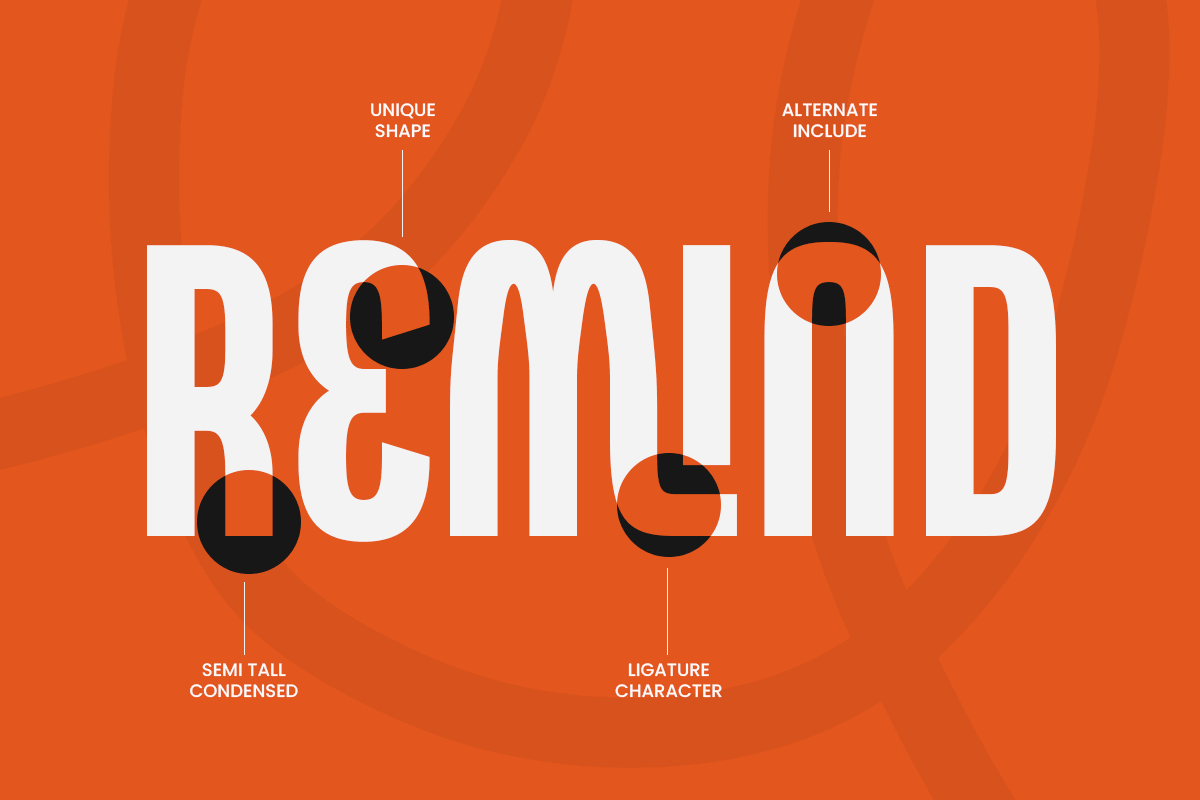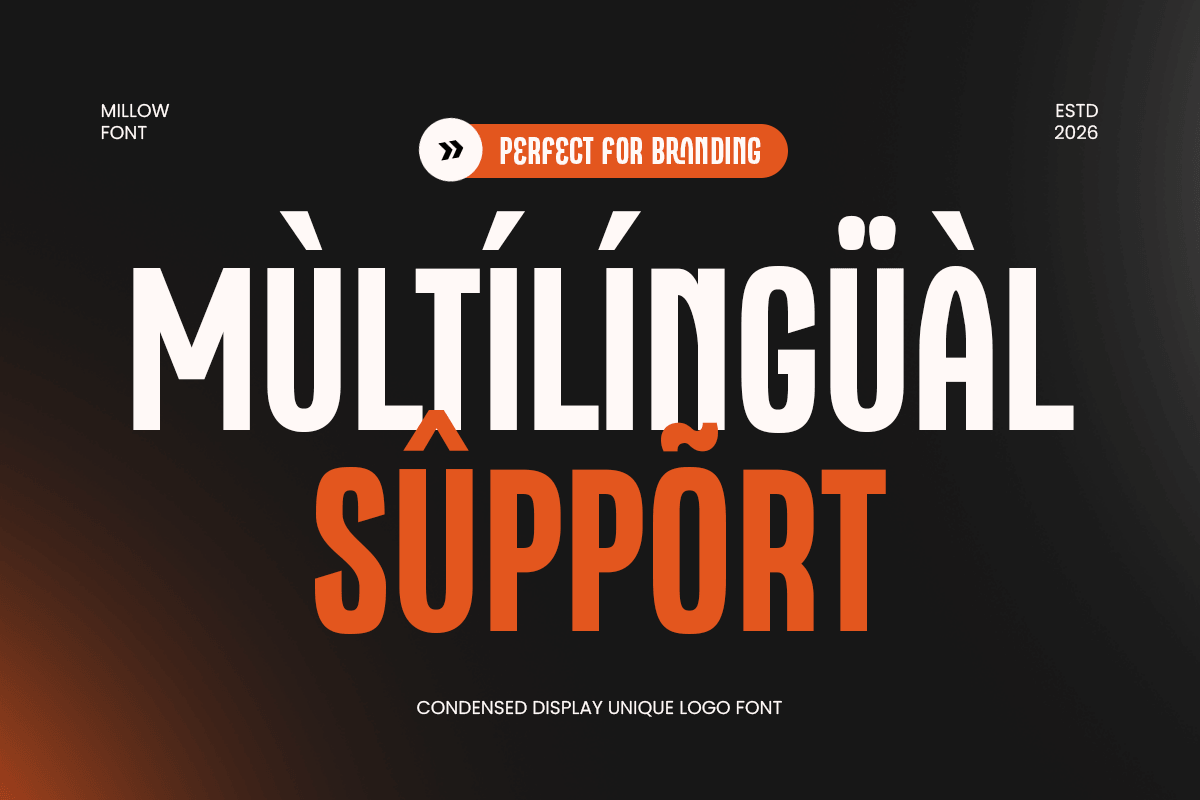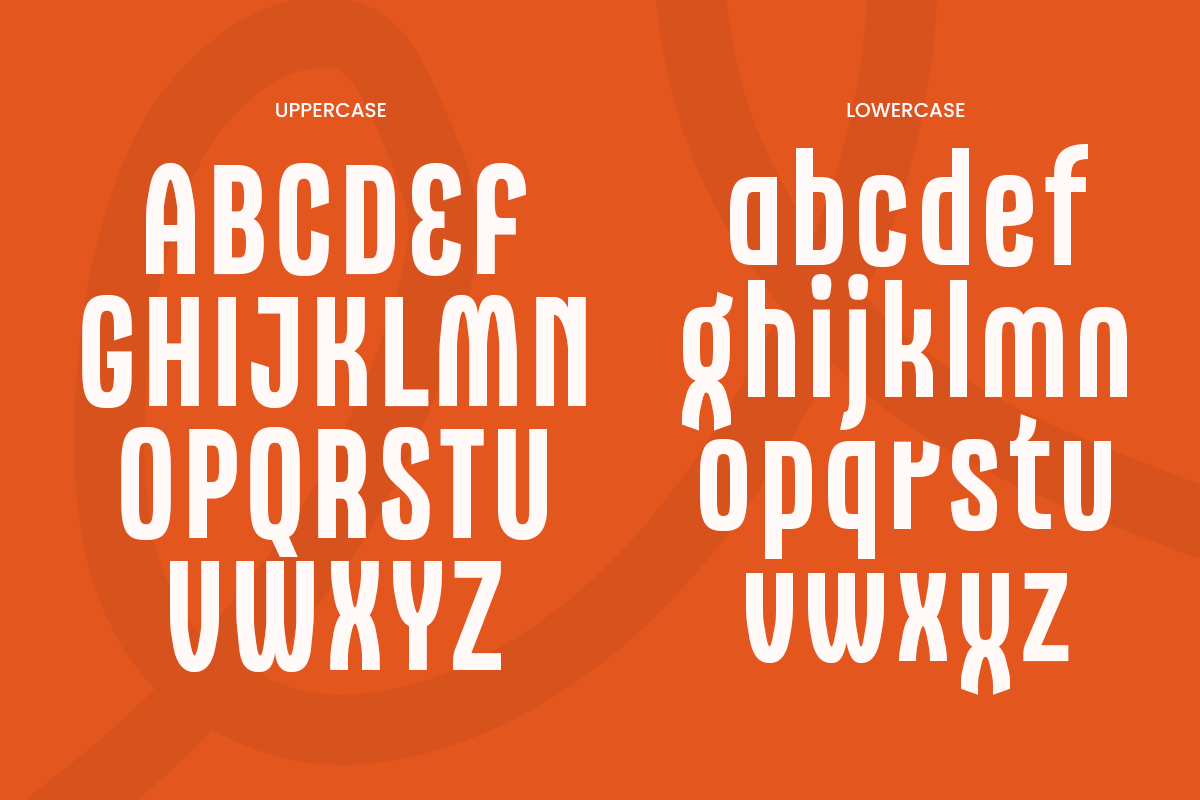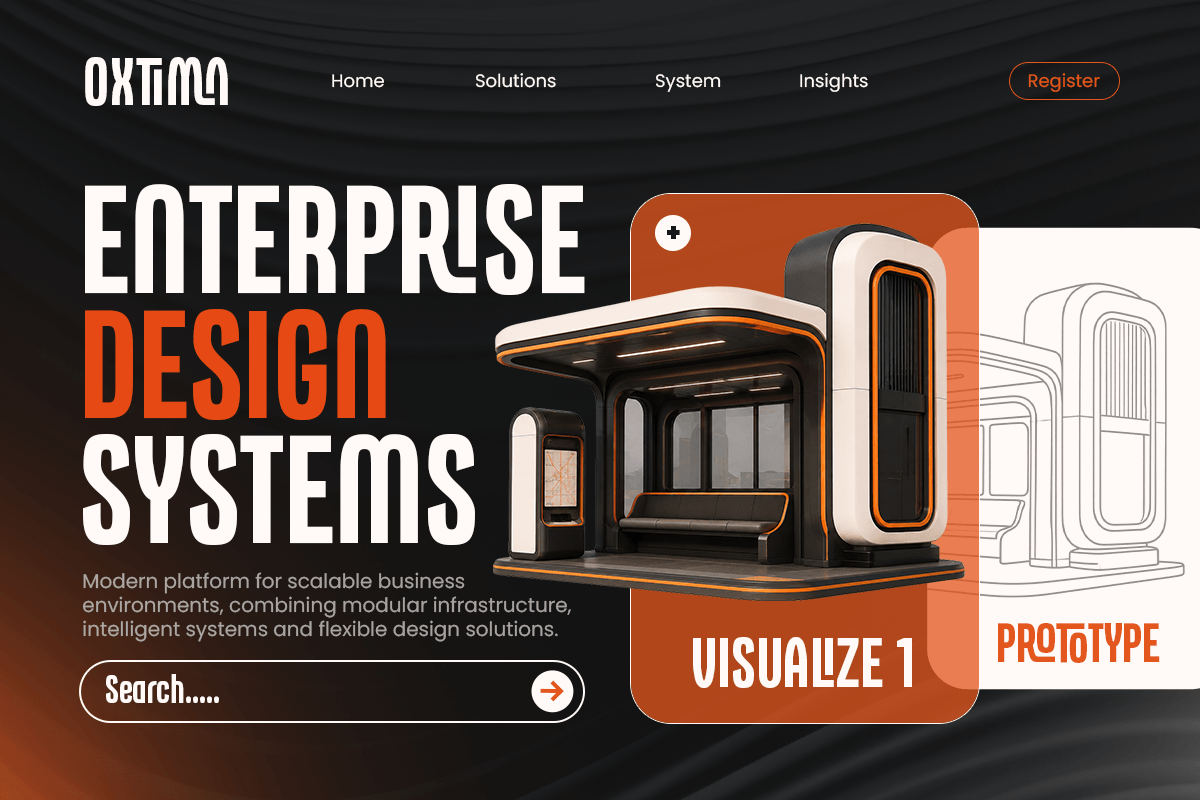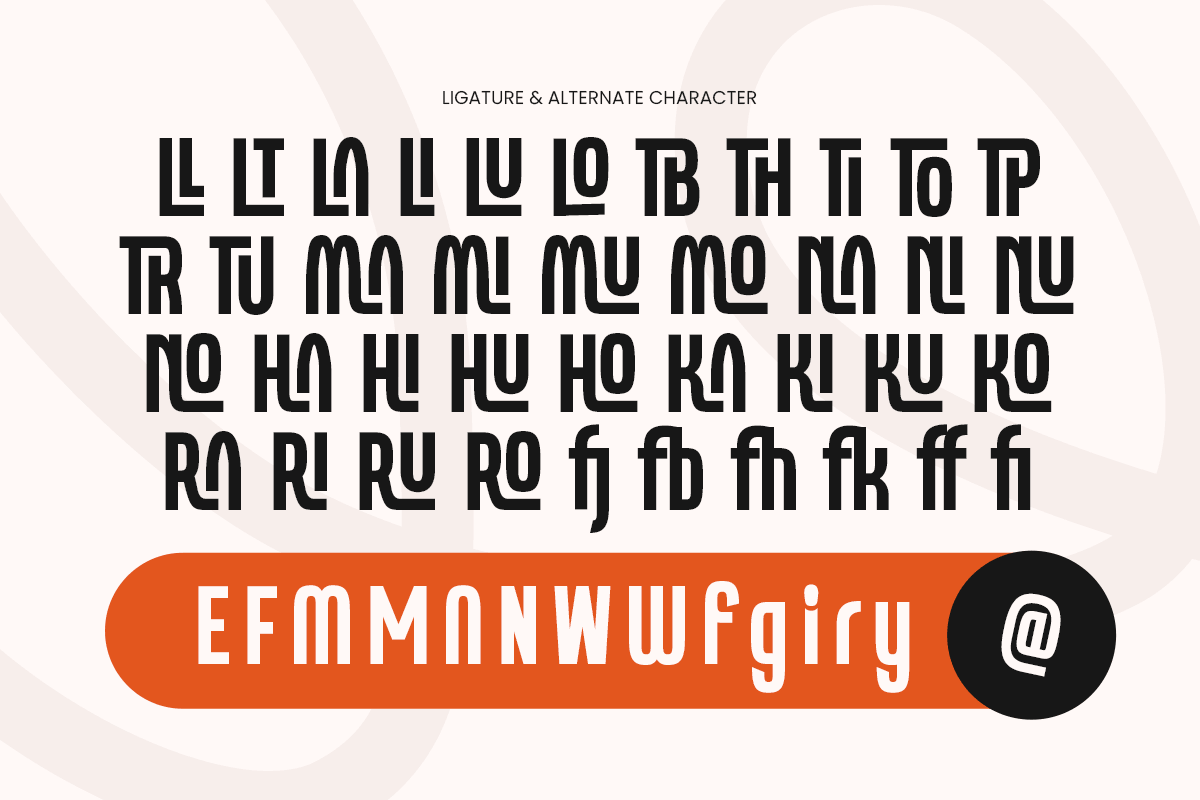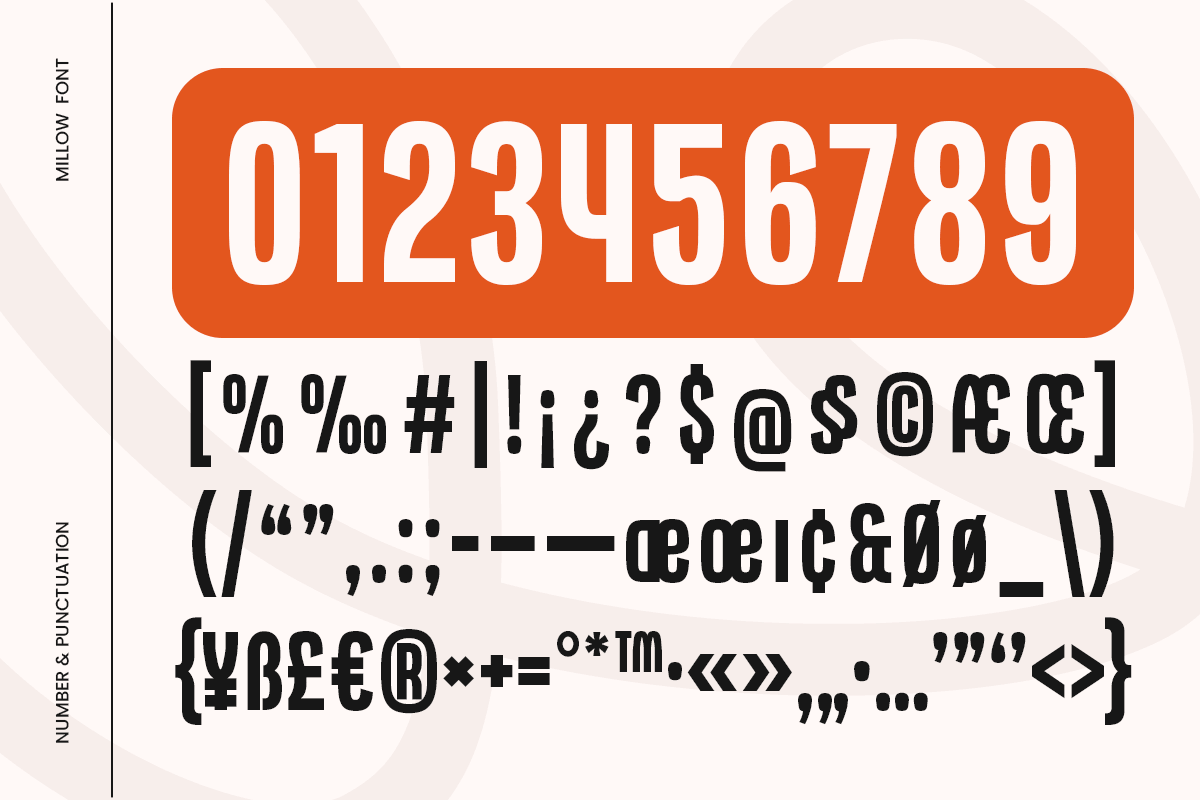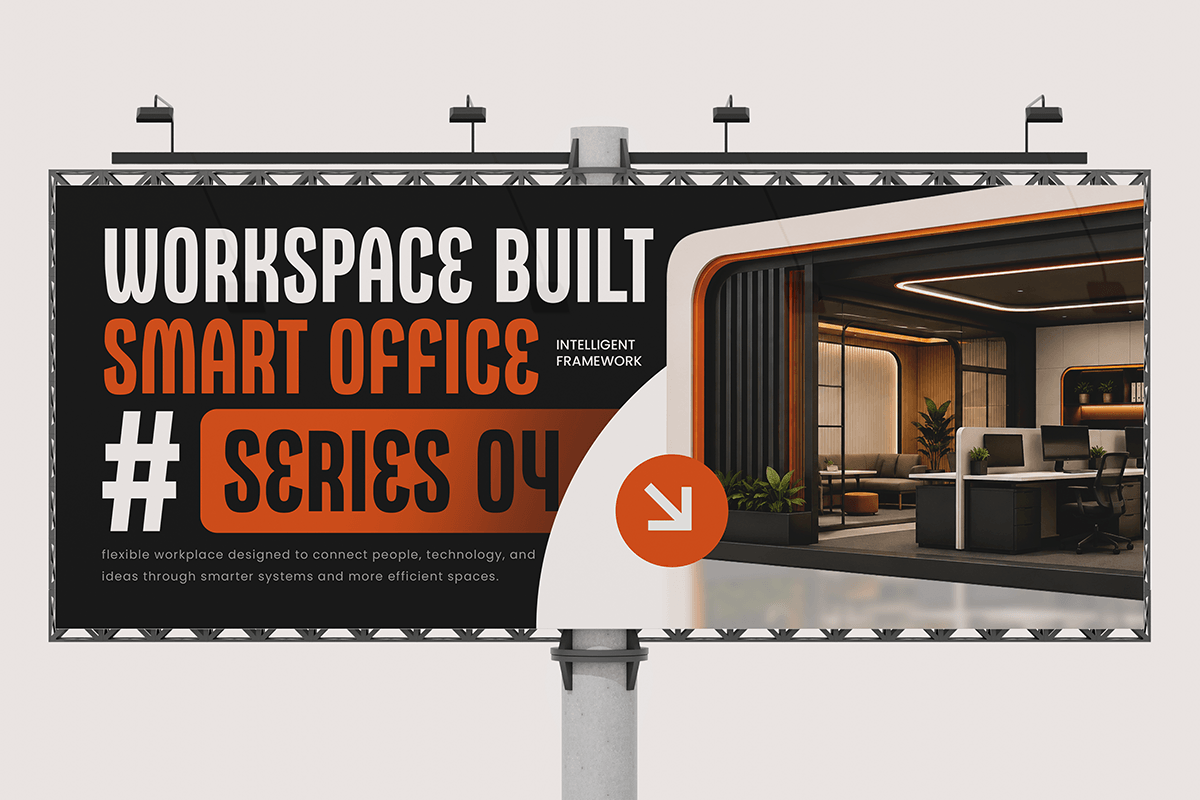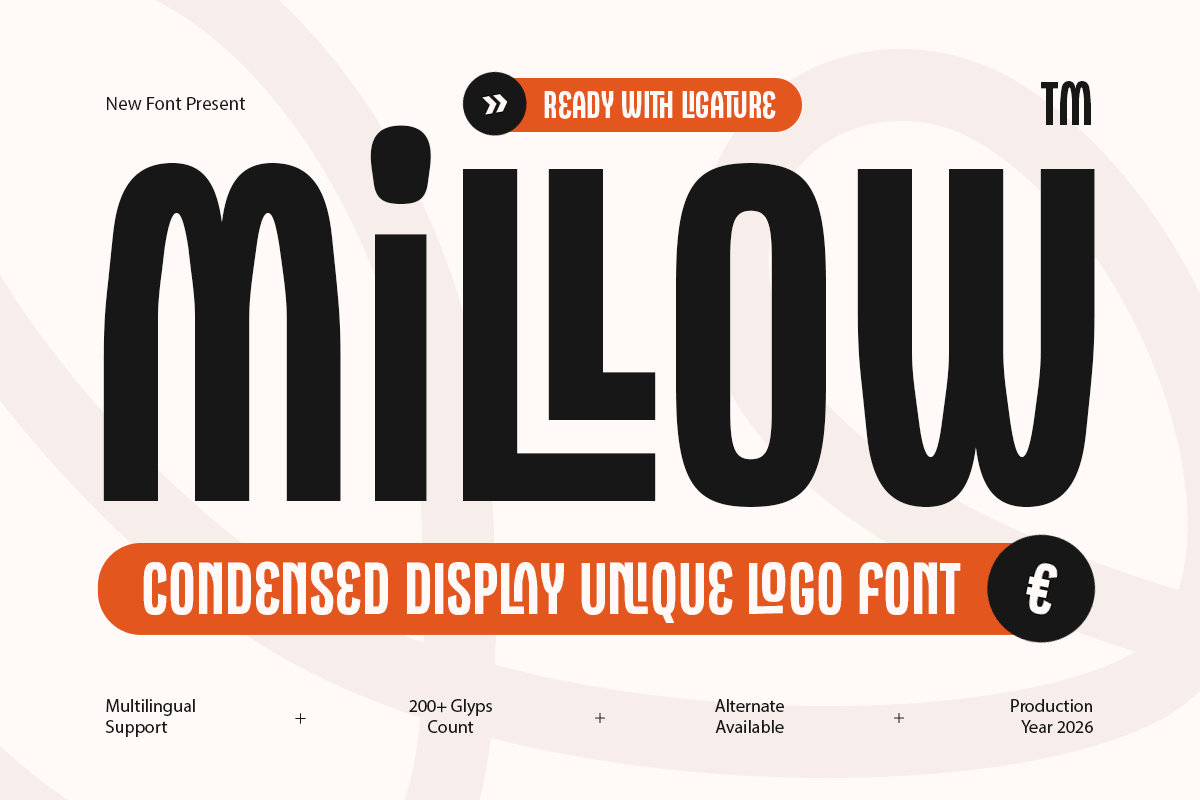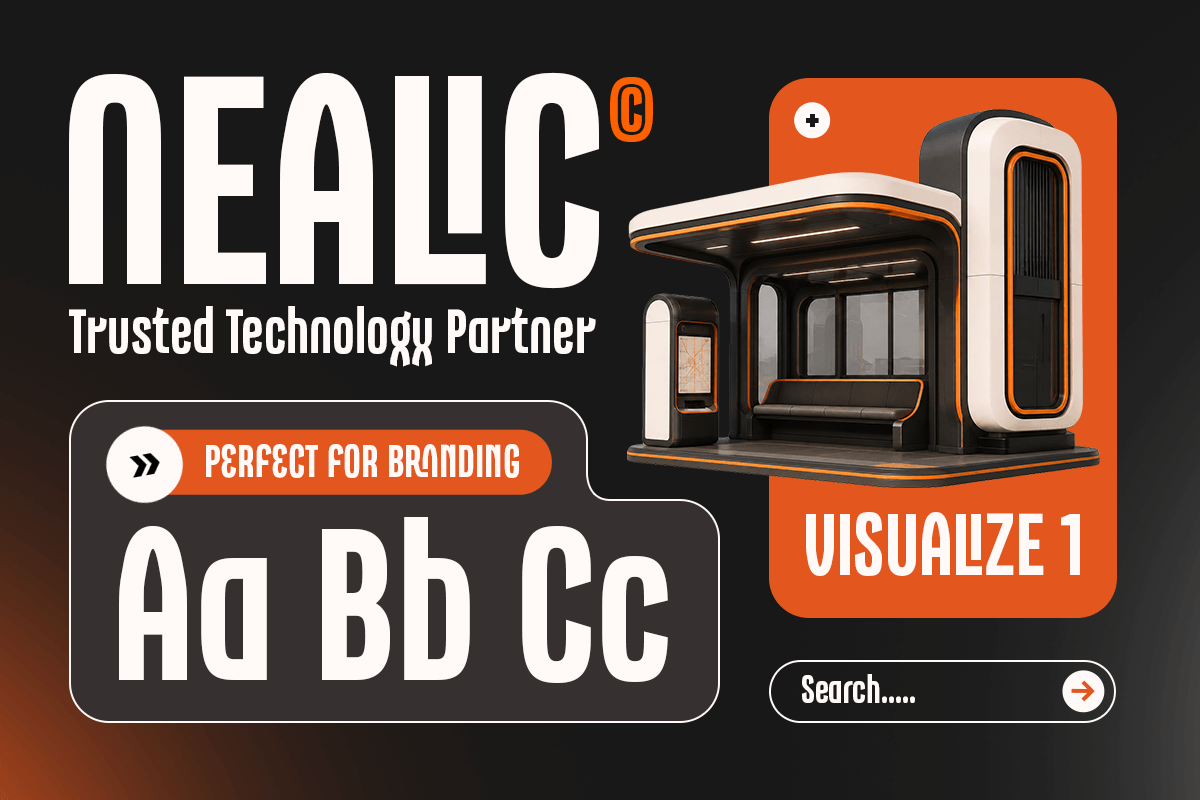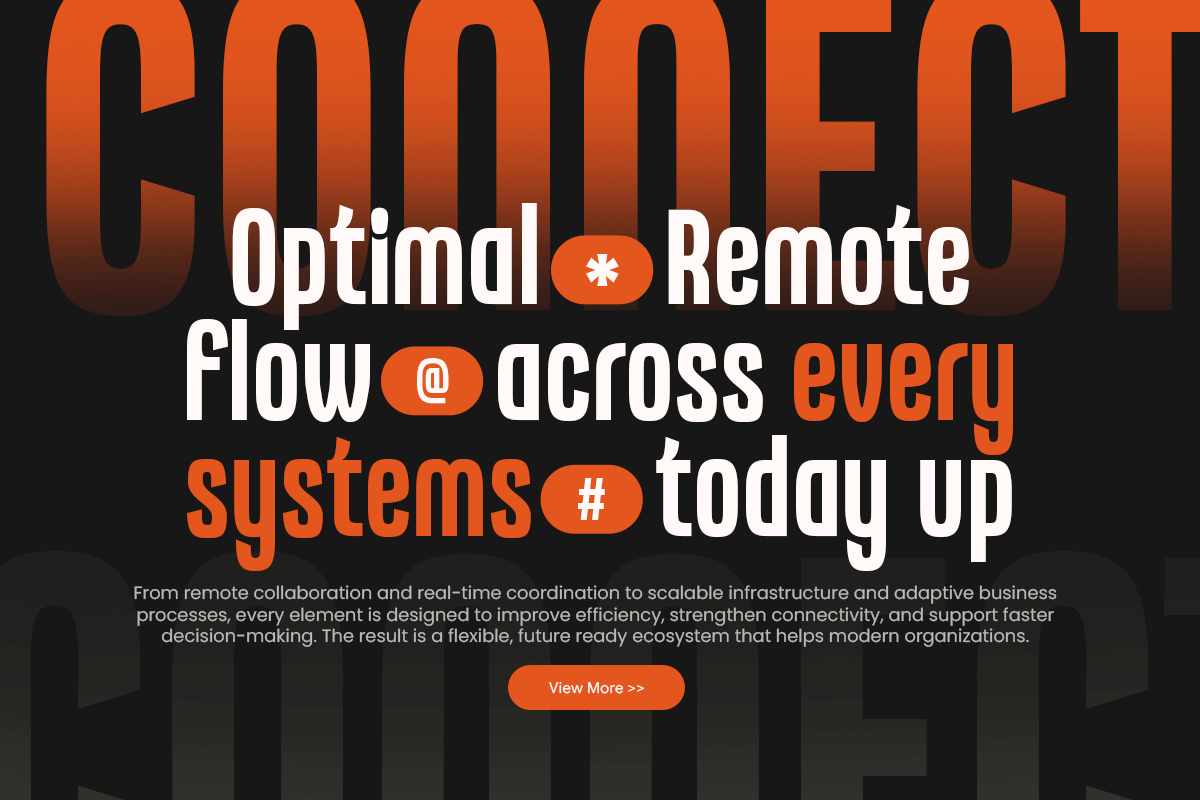
Millow - Condensed Unique Logo Font
Millow is a condensed unique logo font crafted for distinctive branding, modern typography, and memorable visual identity. With narrow proportions, creative letterforms, and a strong display character, it creates a bold and recognizable presence for every design.
Designed for logos, brand identity, packaging, posters, editorial layouts, advertising materials, and social media graphics, Millow combines condensed structure with a unique contemporary style.
Perfect for designers who want a logo font with strong personality, modern aesthetics, and impactful visual expression.
Millow Font Features
Uppercase & lowercase
Condensed logo characters
Alternates & ligatures
Professional kerning
Millow Font Perfect For Logo design, branding identity, packaging design, poster layouts, editorial headlines, advertising graphics, social media posts, product labels, creative projects, and modern typography designs.